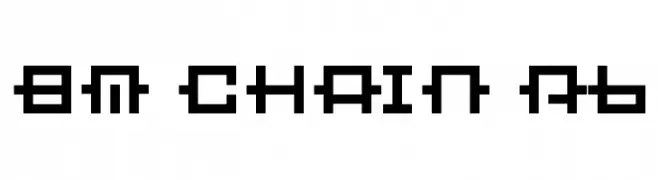
A pixelated, retro-inspired font with a digital, blocky aesthetic.
A pixelated, blocky font with a retro digital aesthetic.
A bold, pixelated font with a retro digital aesthetic.